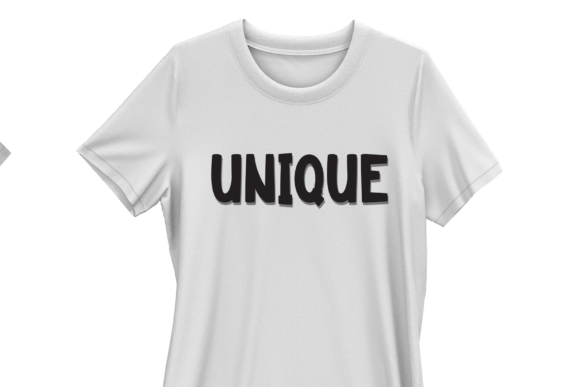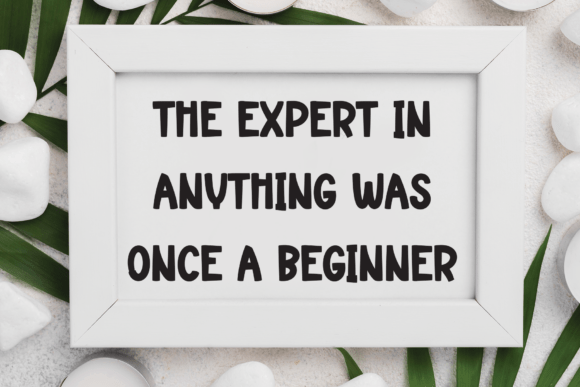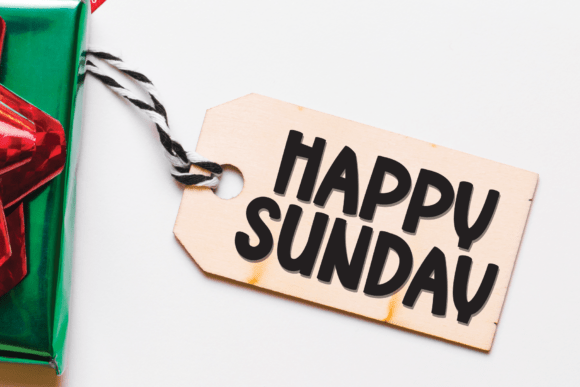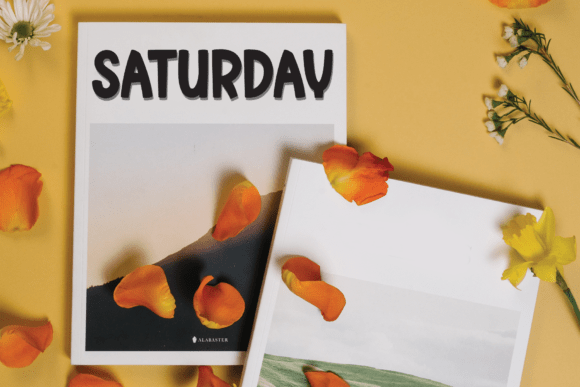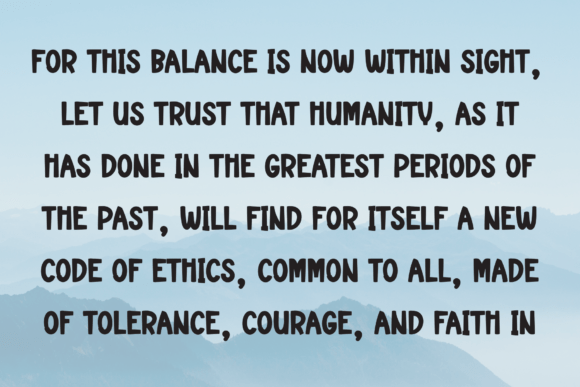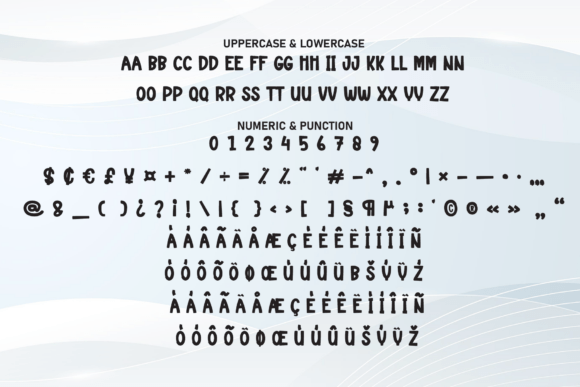
Introduction to Ghosthink Font
Do you remember the moment when you stumbled upon the perfect font for your creative project? The one that made your design stand out from the crowd, and gave it that extra oomph? For many designers, that moment is what makes all the hard work worth it. And if you’re looking for a font that’s sure to bring a touch of magic to your next high-quality design, look no further than the enchanting Ghosthink Font.
This free download is a treasure trove of creative possibilities, featuring irregular letterforms and bold strokes that add a dash of fun to any design. Whether you’re working on a spooky storybook, a quirky branding project, or just need a design resource that’s a little out of the ordinary, the Ghosthink Font is an excellent choice. Plus, with its transparent background, you can easily place it over any image or background, making it a versatile tool for any designer.
Key Features of Ghosthink Font
- High-quality, unique font design ideal for creative projects, such as graphic design, digital art, and typography.
- Features a clean and minimalist aesthetic, perfect for modern designs and branding materials.
Honest Review: Ghosthink Font
I recently stumbled upon the Ghosthink Font, and I must say, it’s been a game-changer for my creative projects. As a designer, I’m always on the lookout for high-quality fonts that can elevate my designs. The Ghosthink Font delivers, with its unique and modern design.
One of the things that I love about the Ghosthink Font is its versatility. It’s perfect for a wide range of creative projects, from graphic design to digital art. I’ve used it for logos, business cards, and even social media graphics, and it always looks great.
- ✨ Unique and modern design
- ✨ Perfect for a wide range of creative projects
- ✨ High-quality and crisp, even at small sizes
- ⚠️ Limited character set, which can be a problem for long text
- ⚠️ Not suitable for formal or traditional designs
Overall, I’m really impressed with the Ghosthink Font. It’s a great design resource that’s perfect for creative projects. The best part? It’s available for free download, with a transparent background that makes it easy to use in any design software.
Getting the Most Out of Ghosthink Font
To get the most out of the Ghosthink Font, experiment with different font sizes, colors, and alignments to achieve the desired design. Use the font in combination with other design elements, such as images and shapes, to create visually appealing designs. With the Ghosthink Font, you can create high-quality designs for your creative project with ease.
The Ghosthink Font is commonly used for a variety of design projects, including presentations, documents, and social media graphics. Its transparent background makes it ideal for use on images and videos, allowing you to create seamless and professional-looking designs.